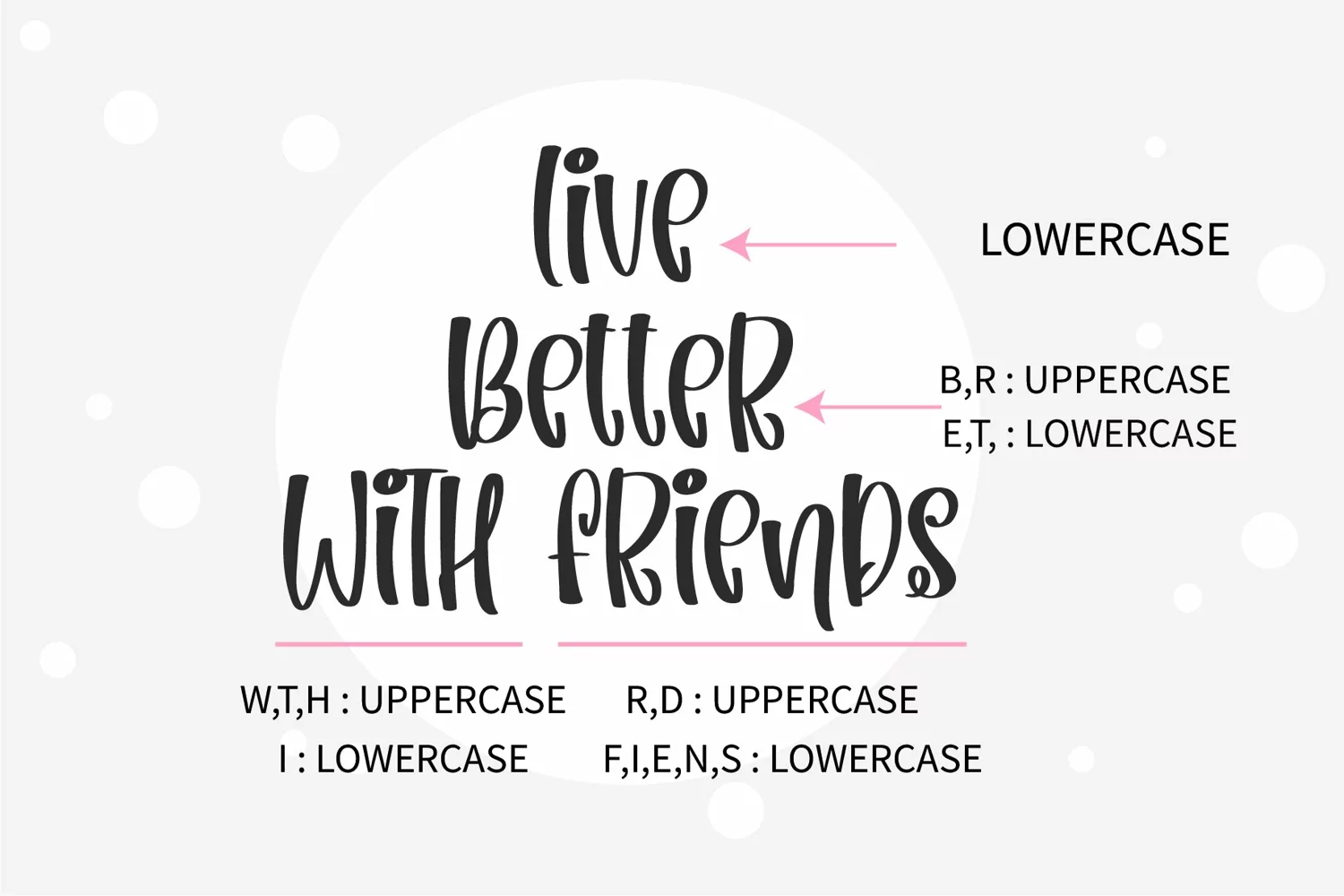
Christmas Reindeer - A handwritten font
Christmas Reindeer s a quirky and relaxed handwritten font. Whatever the topic, this font will be a wonderful asset to your font library, as it has the potential to enhance any creation.
• Alternate glyphs
• Standard glyphs, Basic Latin Unicode: standard English number and basic punctuation